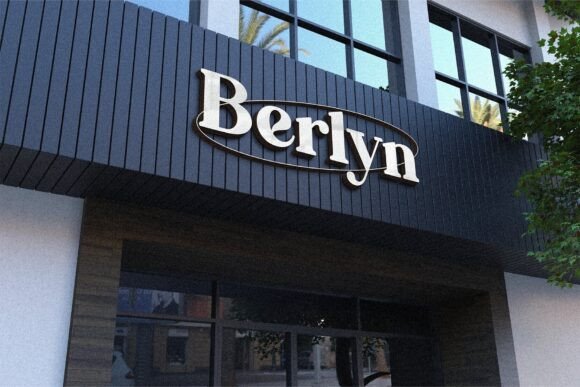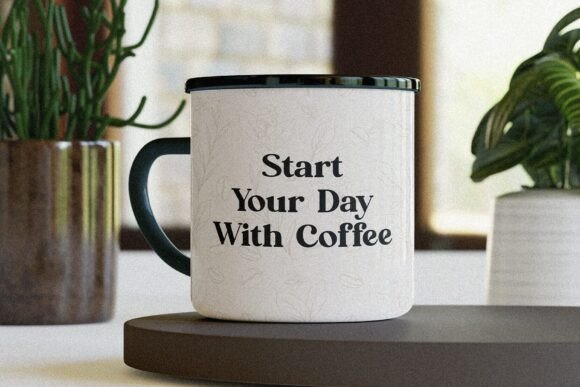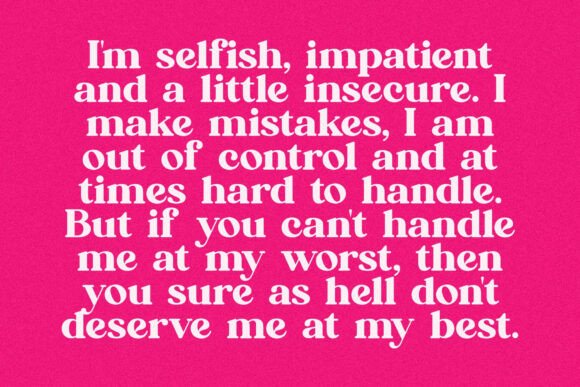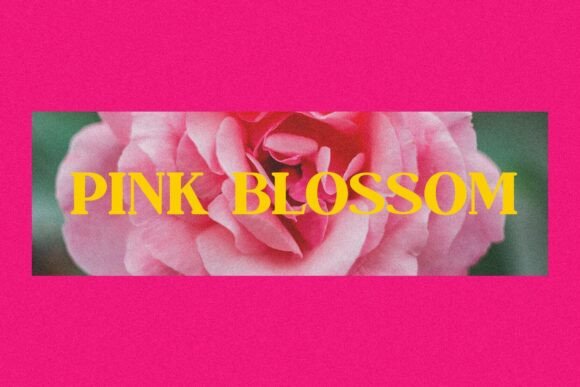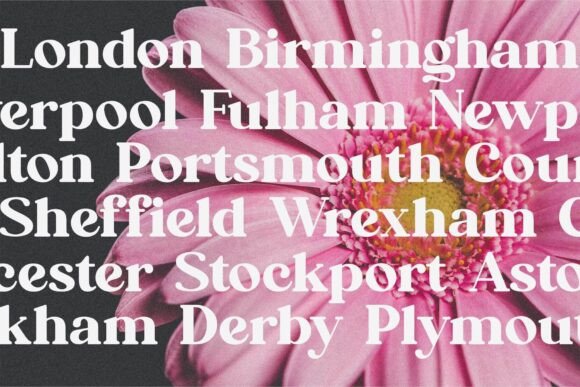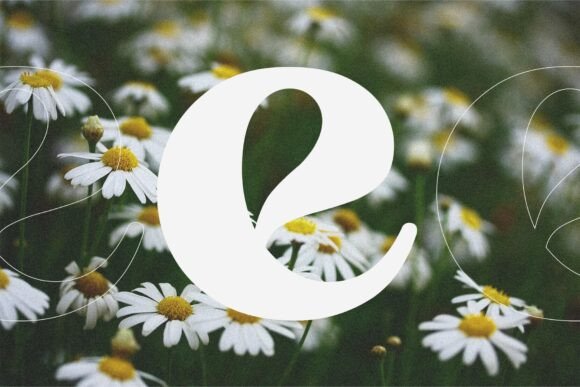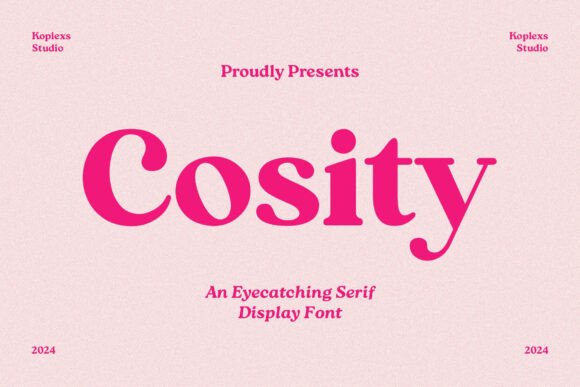
Cosity Font: Elevate Your Designs with Elegance and Modernity
In the world of typography, a font can make or break the visual appeal of a design project. For those seeking a touch of sophistication and class, the Cosity Font is an excellent choice. This stunning Display Serif Font is designed to exude elegance and modernity, making it perfect for projects that demand a high level of refinement.
What is Cosity Font?
Cosity is a thoughtfully crafted Display Serif Font that boasts a unique blend of traditional and modern elements. Its intricate design and precise lines make it an ideal choice for designers and crafters looking to add a touch of luxury to their work. Whether you’re creating a logo, branding materials, or marketing collateral, Cosity Font is sure to impress.
Key Features of Cosity Font
- Sophisticated Design: Cosity Font features a sophisticated design that exudes elegance and modernity. Its intricate lines and precise curves make it perfect for high-end designs.
- Two Versatile Styles: Cosity offers two versatile styles: Regular and Italic. This allows designers to experiment with different looks and feels, making it a fantastic choice for various design needs.
- Display Serif Font: As a Display Serif Font, Cosity is designed to make a statement. Its bold lines and elegant curves make it perfect for headlines, titles, and other display text.
Who Can Benefit from Cosity Font?
Cosity Font is an excellent choice for a wide range of designers and crafters, including:
- Graphic Designers: Graphic designers can use Cosity Font to create stunning logos, branding materials, and marketing collateral.
- Web Designers: Web designers can use Cosity Font to create elegant and modern website headers, titles, and other display text.
- Digital Artists: Digital artists can use Cosity Font to add a touch of sophistication to their artwork.
- Crafters: Crafters can use Cosity Font to create beautiful and elegant craft designs, such as SVG files, iron-on designs, and more.
Here are some tips for using Cosity Font:
- Use it as a headline font: Cosity Font is perfect for headlines and titles. Use it to make a statement and draw attention to your design.
- Experiment with different styles: Try using the Regular and Italic styles together to create a unique and interesting look.
- Pair it with other fonts: Cosity Font pairs well with other serif and sans-serif fonts. Experiment with different font combinations to find the perfect look for your design.
In conclusion, Cosity Font is a sophisticated Display Serif Font that exudes elegance and modernity. With its two versatile styles and intricate design, it’s perfect for projects that demand a touch of class. Whether you’re a graphic designer, web designer, digital artist, or crafter, Cosity Font is an excellent choice for adding a touch of sophistication to your work.